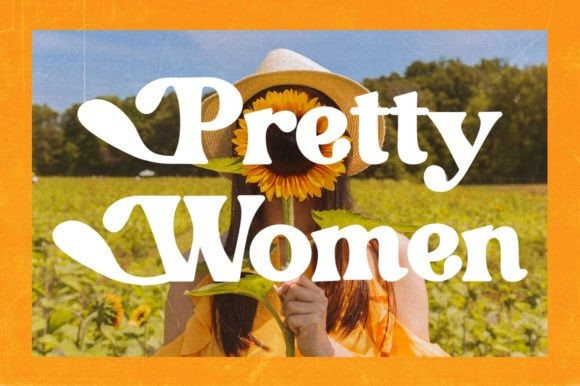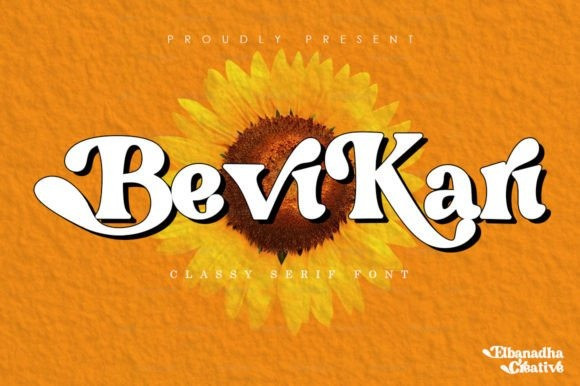
Bevikari Font
Bevikari Font is a retro and elegant serif font. Is suitable for any project such as logos, branding projects, homeware designs, product packaging, mugs, quotes, posters, shopping bags, t-shirts, book covers, name cards, invitation cards, greeting cards, labels, photography, watermark, special events, and all your other lovely projects that need a beautiful taste.